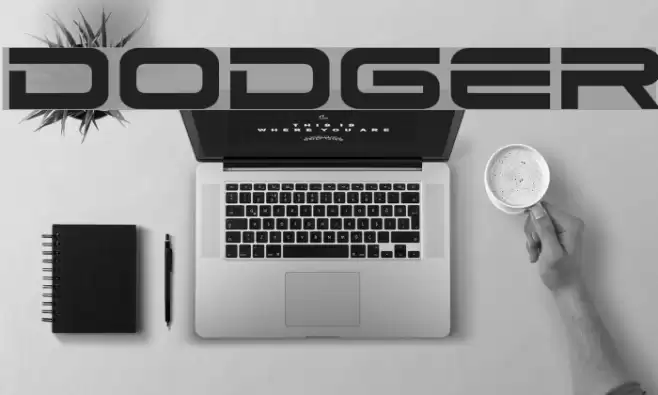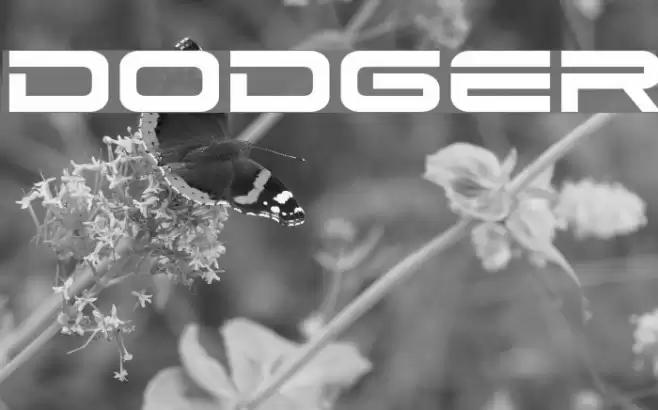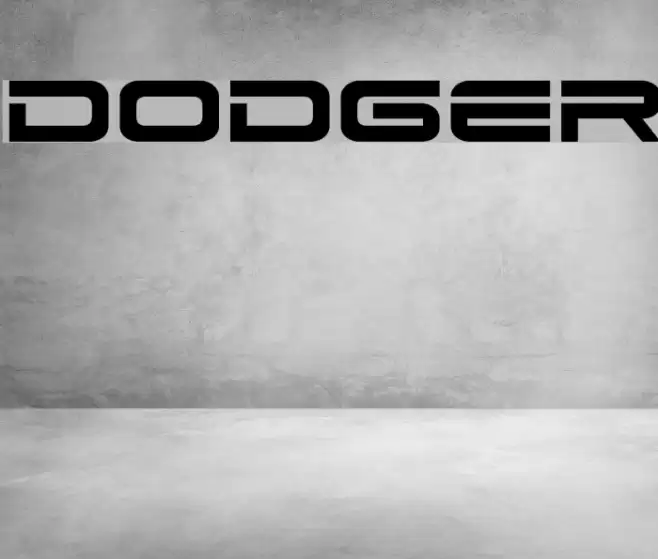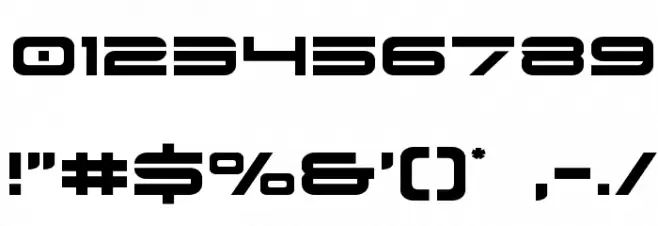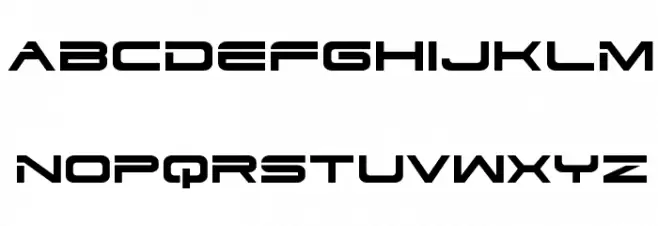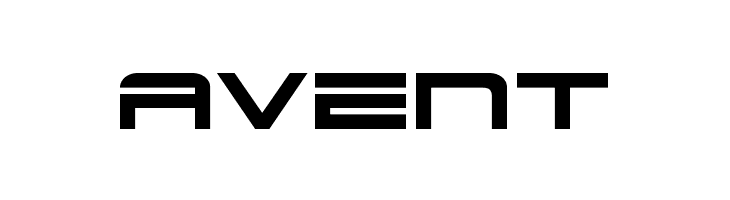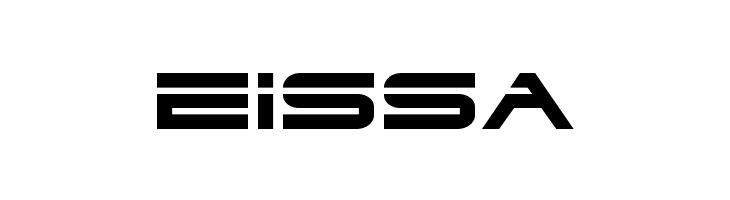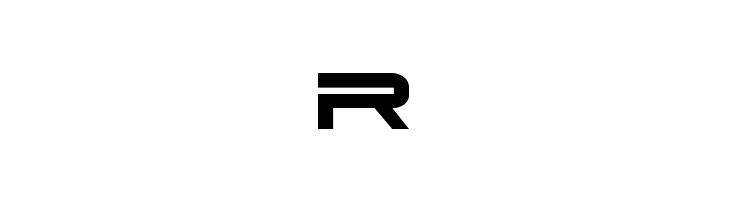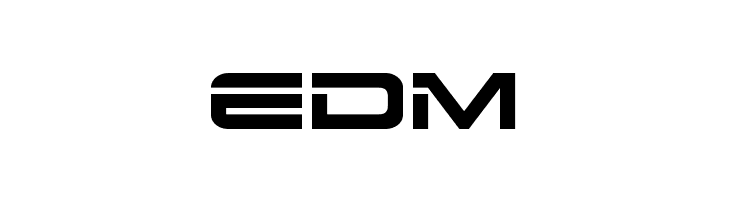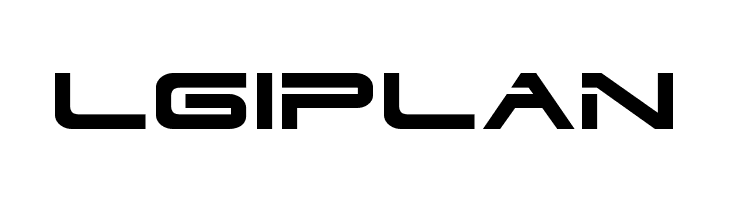
Dodger Font
Dodger Description
This font features a futuristic and geometric design, characterized by its bold and angular letterforms. The uppercase and lowercase letters maintain a consistent style, with sharp edges and a uniform stroke width that gives a sense of modernity and precision. The numerals and special characters follow the same design principles, ensuring a cohesive look across all glyphs. The font's structure is clean and minimalistic, making it suitable for projects that require a contemporary and tech-savvy aesthetic.
A futuristic, geometric font with bold, angular letterforms from Cars fonts.
- Proposed Projects: Ideal for technology branding, sci-fi themed designs, video game interfaces, and modern advertising.